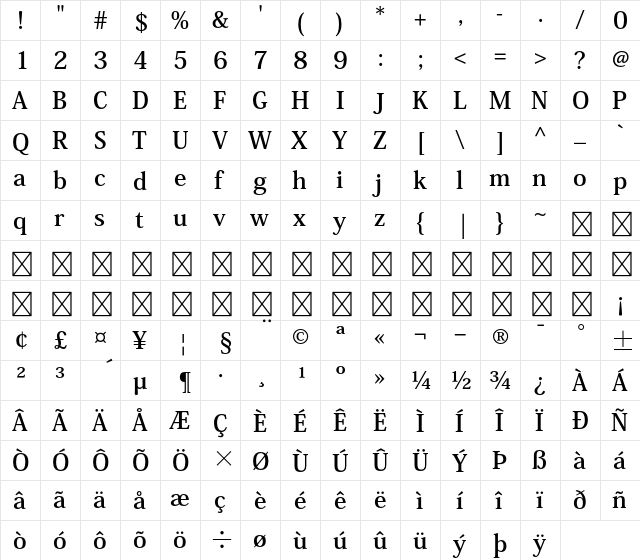
Kozuka Mincho Pro B Font Preview
Kozuka Mincho Pro B
| Designer | Masahiko Kozuka |
Design Context for Kozuka Mincho Pro Typeface
Kozuka Mincho Pro takes a measured approach to typography — its balanced proportions and neutral character make it a reliable workhorse for both digital and print work.